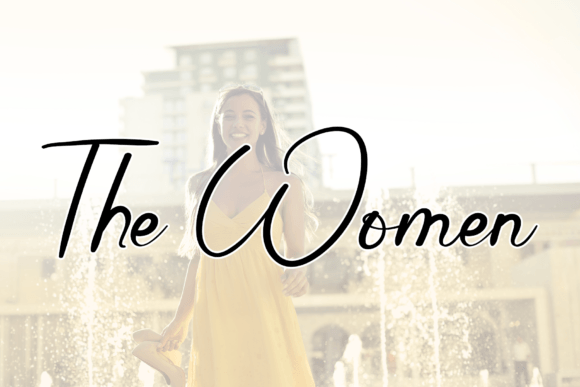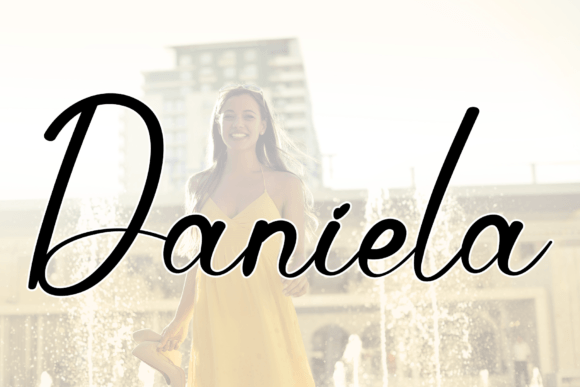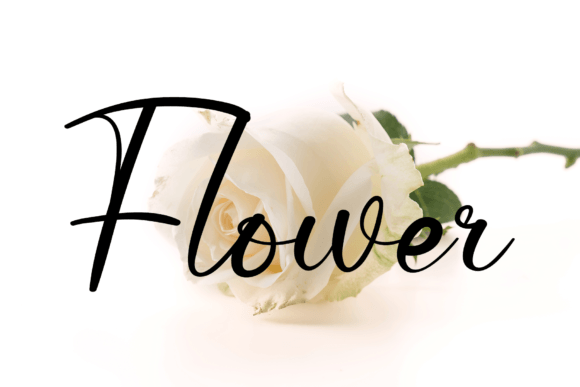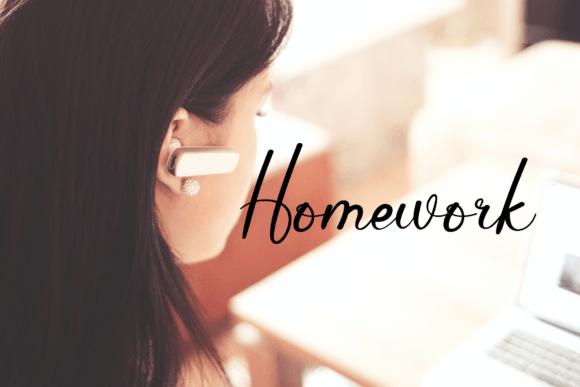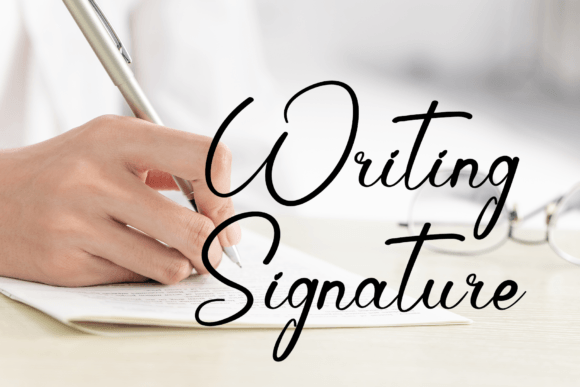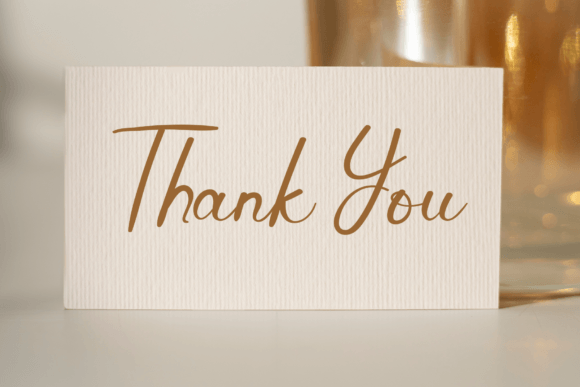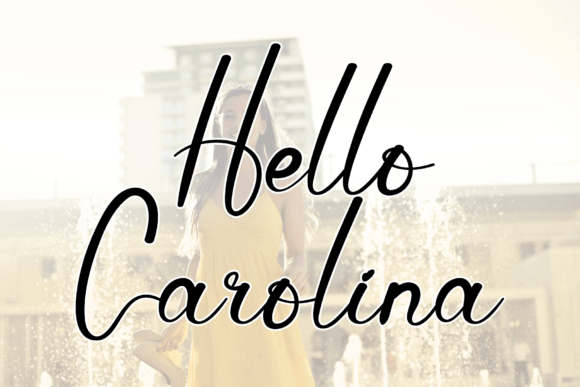
Hello Carolina Font: Elevate Your Designs with Elegance
Hello Carolina is a stunning handwritten font that has captured the hearts of designers and crafters alike. With its elegant touch and timeless style, this beautiful font is perfect for adding a touch of sophistication to your favorite projects. In this article, we’ll dive into the world of Hello Carolina Font, exploring its unique features, uses, and benefits.
The Beauty of Hello Carolina Font
Hello Carolina Font is a neat and beautiful handwritten font that exudes elegance and refinement. Its incredibly distinct and timeless style makes it stand out from other fonts, and its versatility ensures that it can be used in a wide range of design projects. Whether you’re creating a logo, branding materials, or social media graphics, Hello Carolina Font is the perfect choice.
Key Features of Hello Carolina Font
- Elegant Touch: Hello Carolina Font boasts an elegant touch that adds a level of sophistication to any design.
- Handwritten Style: The font’s handwritten style gives it a personal and unique feel that’s perfect for creating bespoke designs.
- Timeless Appeal: Hello Carolina Font’s timeless style ensures that it won’t go out of fashion anytime soon, making it a great investment for designers.
- Versatility: The font’s versatility makes it suitable for use in a wide range of design projects, from logos and branding materials to social media graphics and more.
Uses of Hello Carolina Font
Hello Carolina Font is perfect for a variety of design projects, including:
- Logo Design: Create a stunning logo that stands out from the crowd with Hello Carolina Font.
- Branding Materials: Use the font to create professional-looking branding materials, such as business cards, letterheads, and more.
- Social Media Graphics: Add a touch of elegance to your social media graphics, including Facebook posts, Instagram stories, and more.
- Wedding and Event Design: Hello Carolina Font is perfect for creating beautiful wedding and event designs, including invitations, programs, and more.
Benefits of Using Hello Carolina Font
There are many benefits to using Hello Carolina Font in your design projects, including:
- Unique Style: The font’s unique style ensures that your designs stand out from the crowd.
- Elegance: Hello Carolina Font adds a level of elegance and sophistication to any design.
- Versatility: The font’s versatility makes it suitable for use in a wide range of design projects.
- Easy to Read: Hello Carolina Font is easy to read, making it perfect for use in body text and other applications where readability is key.
Tips for Using Hello Carolina Font
Here are a few tips for getting the most out of Hello Carolina Font:
- Use it Sparingly: Use Hello Carolina Font sparingly to add emphasis and create visual interest.
- Pair it with Other Fonts: Pair Hello Carolina Font with other fonts to create a unique and visually appealing combination.
Hello Carolina Font is a beautiful and elegant handwritten font that’s perfect for adding a touch of sophistication to your design projects. With its unique style, versatility, and timeless appeal, it’s a great choice for designers and crafters alike. Whether you’re creating a logo, branding materials, or social media graphics, Hello Carolina Font is sure to elevate your designs and help you stand out from the crowd.